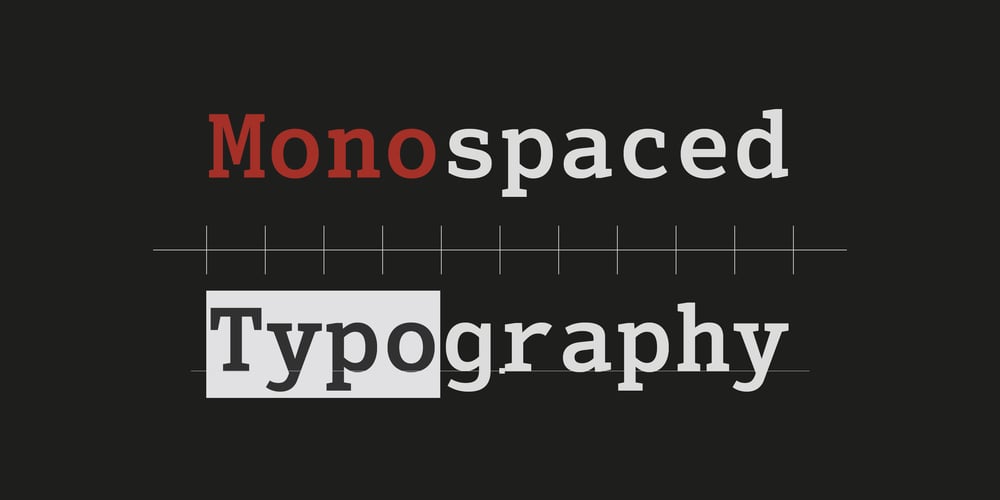
Senpai Coder
Senpai Coder font
Senpai Coder Font Family was designed by Ryoichi Tsunekawa and published by Dharma Type. Senpai Coder contains 6 styles and family package options. Senpai Coder is a family of typewrighter-style monospaced font for developing, programming, coding, and table layout.Some desirable features in monospaced fonts are listed below.1.Easy to distinguish2.Easy to identify3.Easy to readSenpai Coder has very distinguishing letterforms for confusable letters such as Zero&Oh, One&I, and Two&Z. A lot of ingenuity makes this family very distinguishable.Italics have somewhat large inclination angle to be distinguished from their Roman. For the same reason, Italics are slightly lighter than Romans.Italic is not cursive Italic. It is near the slanted Roman.This is an intentional design to identify Italic letters.Cursive is not suitable for programming font.Typewriter letterform (serif) is good for reading. Common elements for each letterform makes harmony and a sense of unity.Senpai Coder supports almost all Latin languages.Try this all-new experiment.